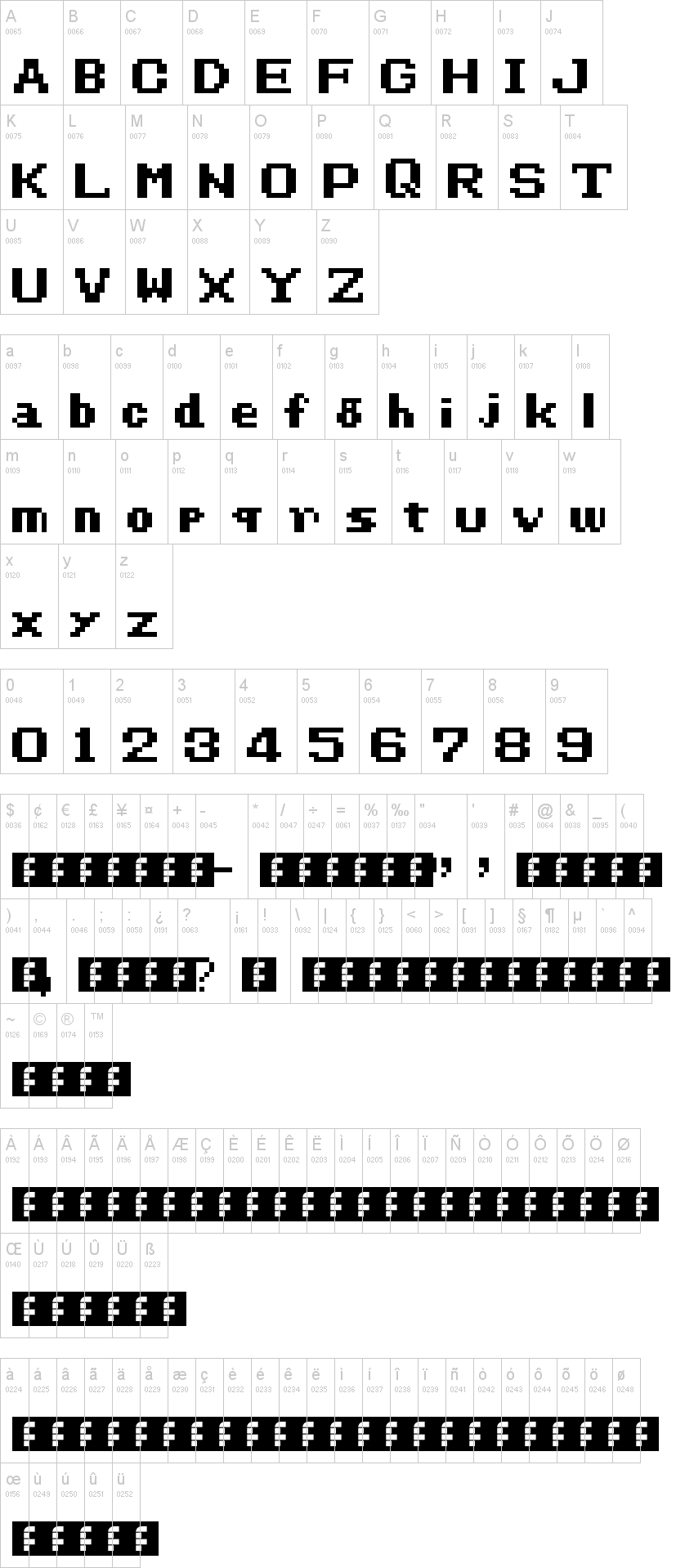
Note of the authorThis is the font used in the NES game Final Fantasy.
Usually when I check game sprite rips, there's a font as well.
But sometimes I can't find an actual font file, so I decided to make them myself.